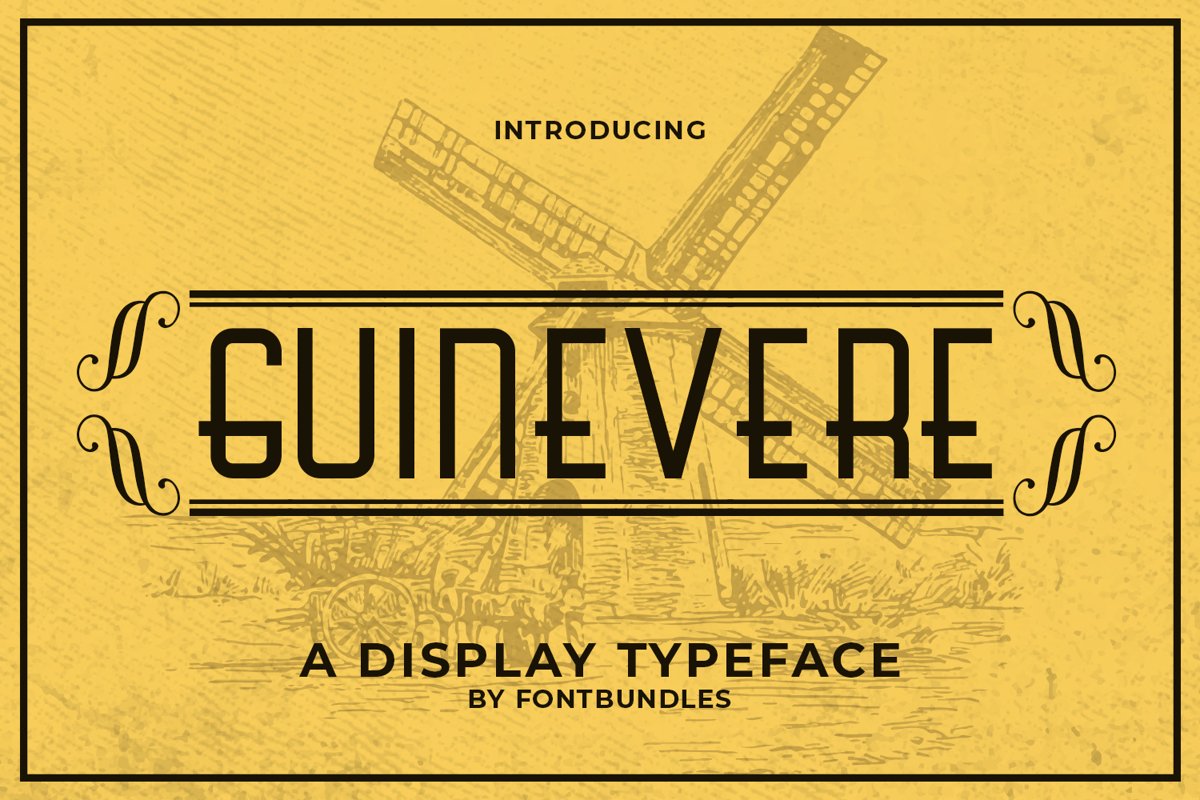
Guinevere is a vintage display typeface. Perfect for quotes, poster, logo, badges, packaging, branding, headline, header, tittle, merchandise and many more.